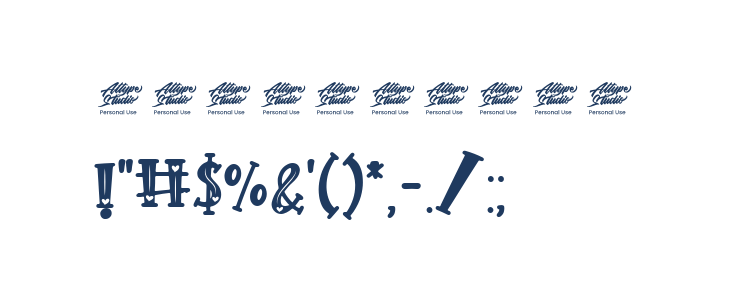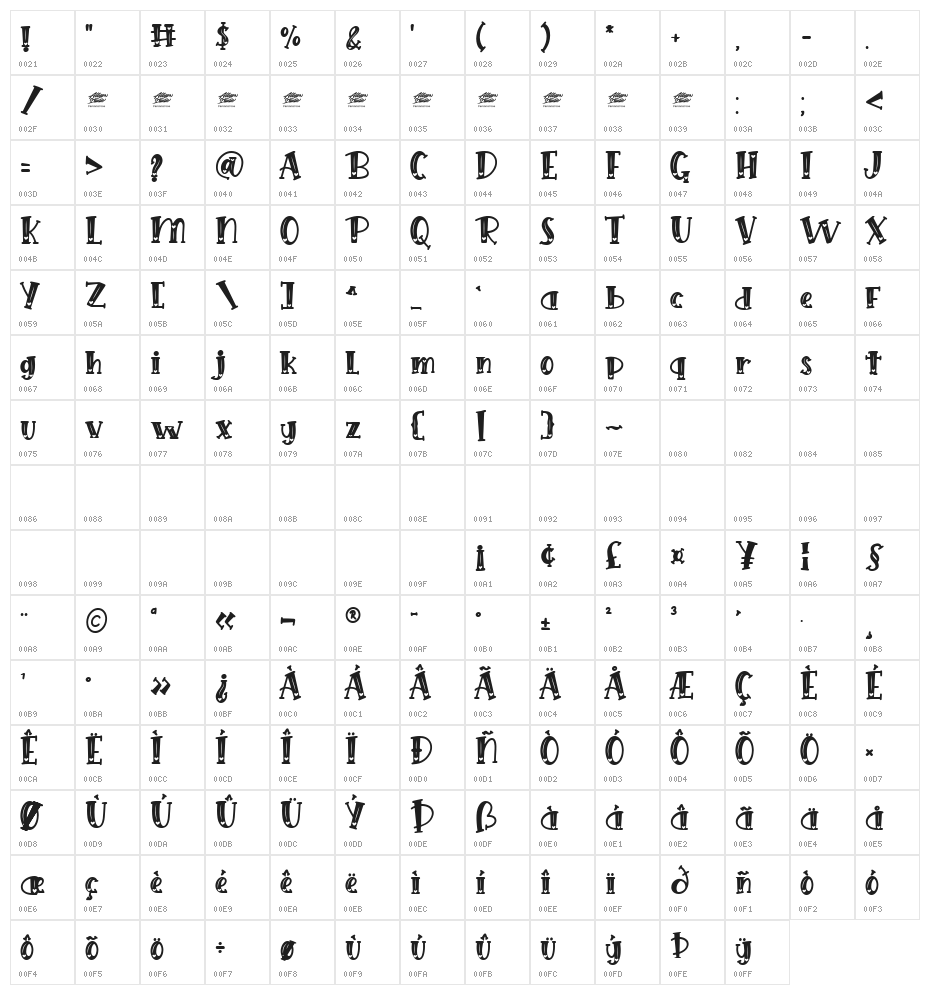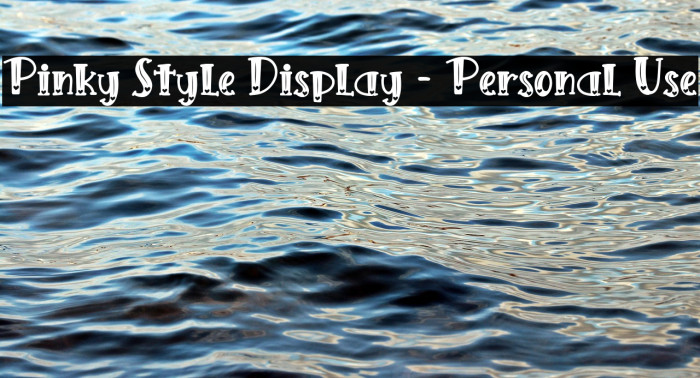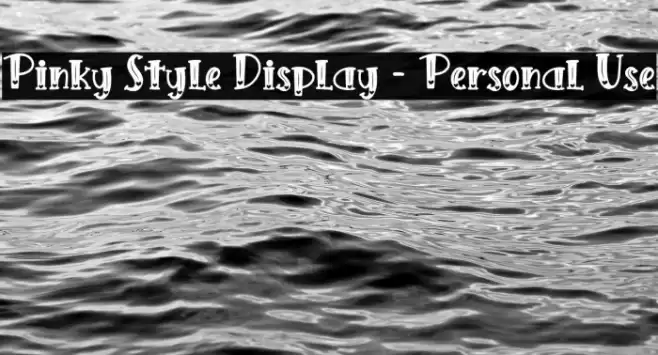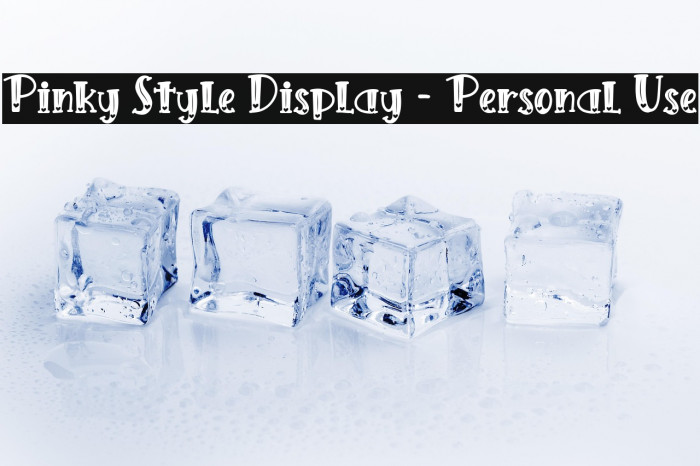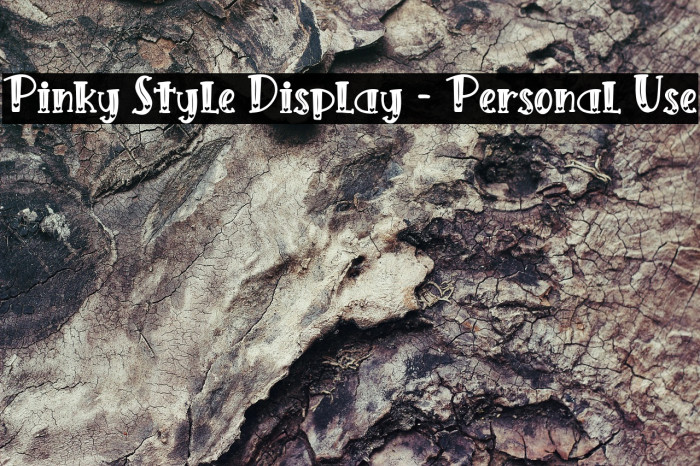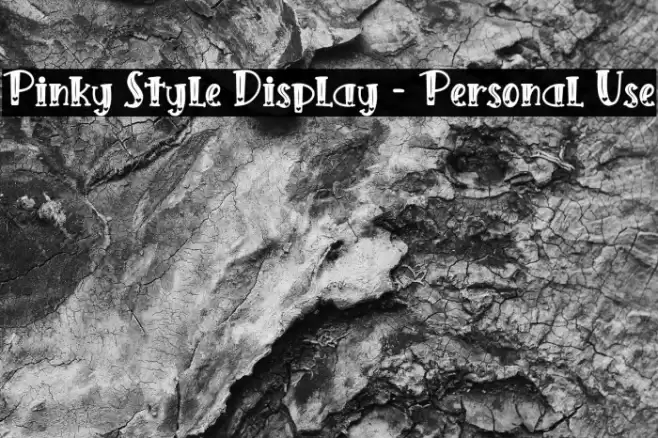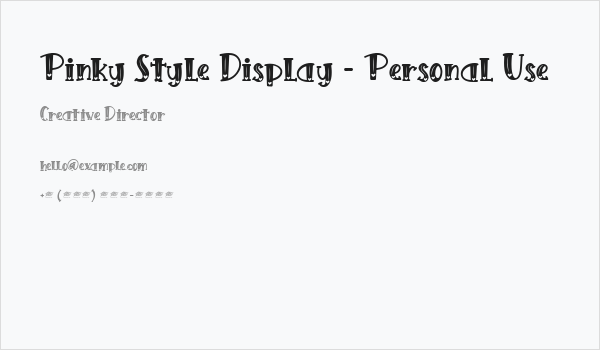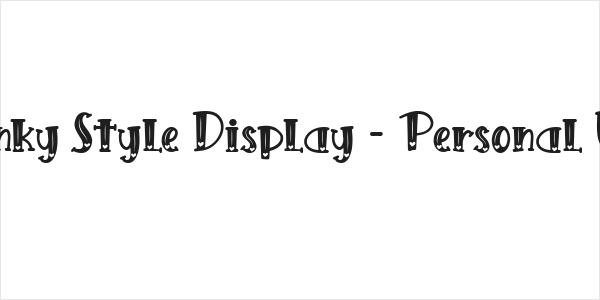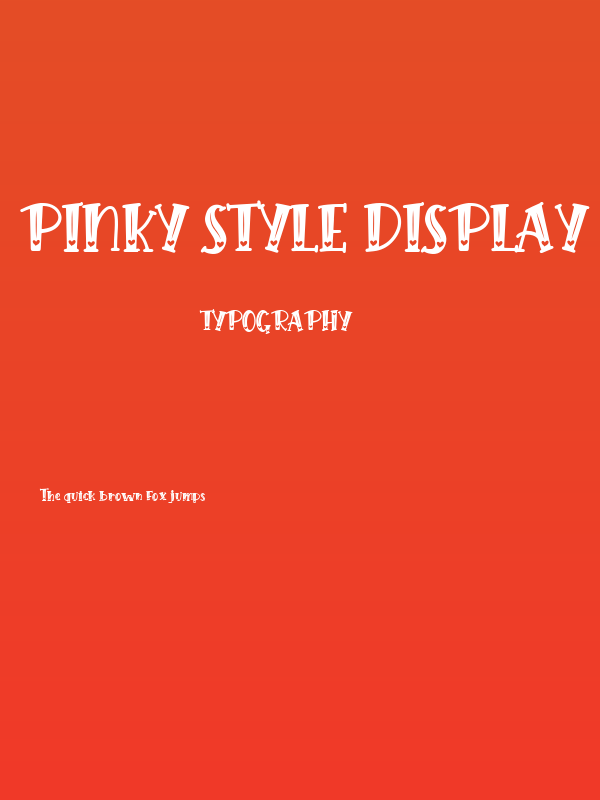
Pinky Style Display - Personal Use Font
Pinky Style Display - Personal Use Description
This playful and whimsical font features a unique design with heart-shaped cutouts within the characters, adding a charming and fun element to the text. The letters are bold and slightly irregular, giving them a hand-drawn appearance that enhances their playful nature. The uppercase and lowercase letters maintain a consistent style, with rounded edges and a slightly exaggerated form that makes each character stand out. The numbers and special characters follow the same design principles, ensuring a cohesive look across all text elements. This font is perfect for projects that require a touch of whimsy and creativity.
| Use Case | Headlines, Logos, Decorative Text |
| Proposed Projects | Ideal for children's books, greeting cards, playful branding, and party invitations. |